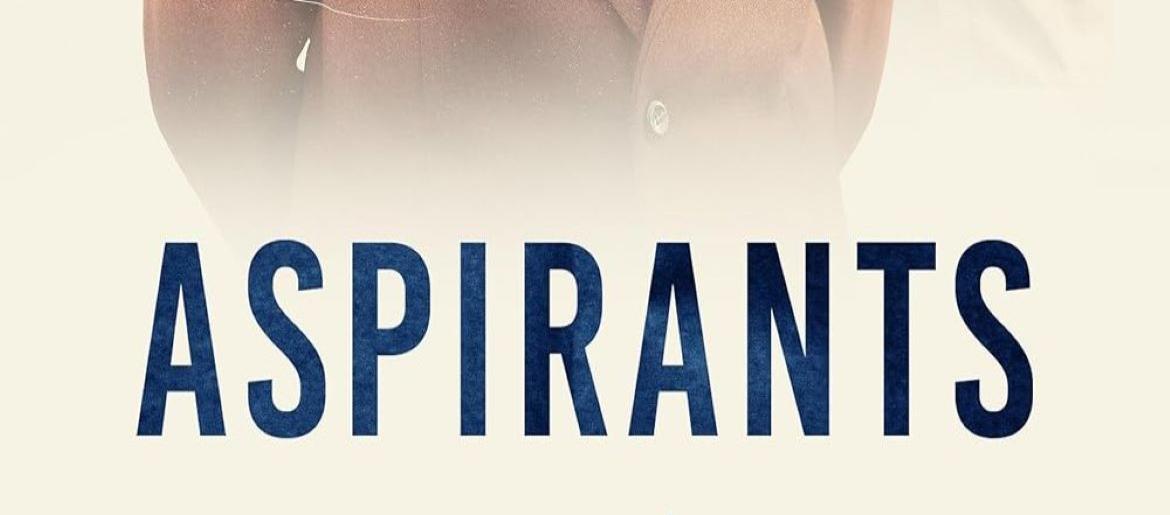
Aspirants Font
Aspirants Font radiates motivation and goal-driven energy—perfect for topics centered around hard work, learning, and ambition. Its style reflects the mindset of students and professionals aiming high, echoing the persistence required to turn dreams into achievement. The typeface used in the Aspirants poster is Bebas Kai, a modern, confident sans-serif that looks sharp, structured, and focused. Just like the journey of every aspirant, this font stands tall, disciplined, and unwavering in presence.